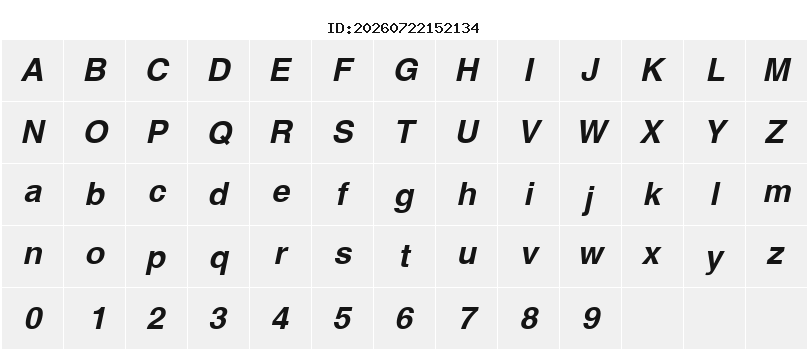
• Font Name: Helvetica
• Font Style: Gras Oblique
• Font ID: Hewlett-Packard: Helvetica Bold Oblique: Version 1.3 (Hewlett-Packard)
• Full Font Name: Helvetica Gras Oblique
• Version: Version 1.3 (Hewlett-Packard)
• PostScript Name: Helvetica-BoldOblique
Helvetica.ttf is a modern, elegant sans-serif font designed for ultimate readability and visual harmony. Perfect for branding, headlines, web design, and print materials.